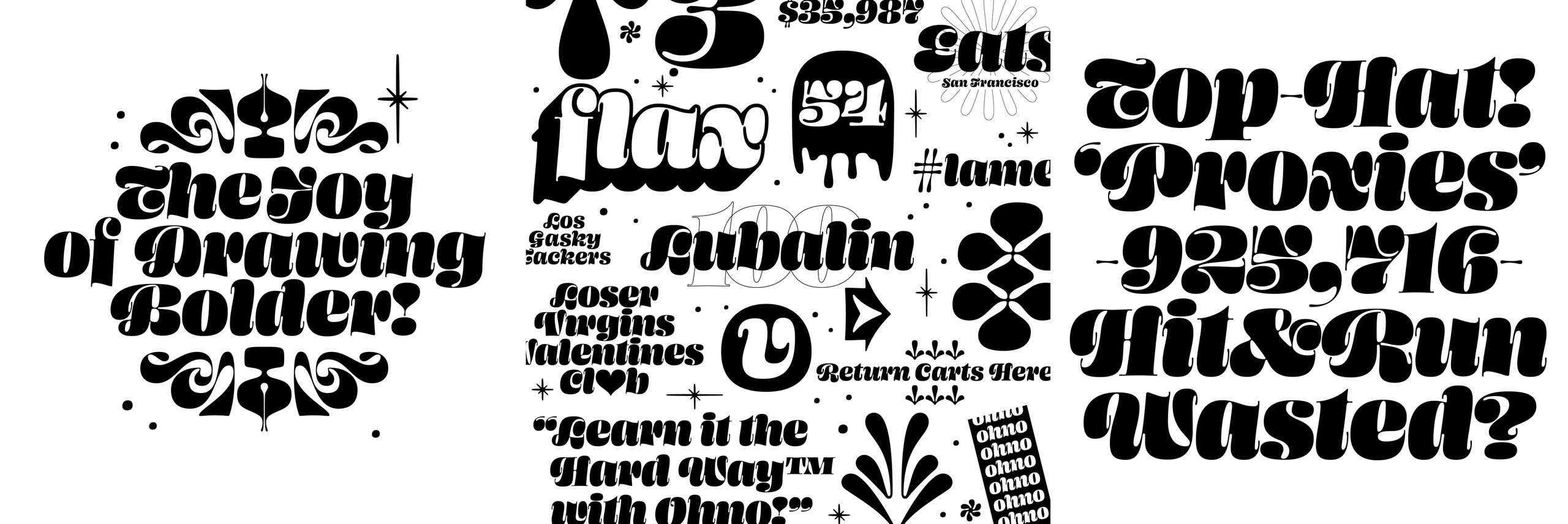
Ohno Blazeface Italic Font is perfect for dynamic sports marketing, high-energy entertainment promotions, explosive gaming graphics, adrenaline-fueled event campaigns, intense fitness branding, blazing speed advertisements, fiery music festivals, extreme sports materials, action-packed movie titles, and electrifying performance communications.
What makes Ohno Blazeface Italic Font so exciting is its explosive combination of kinetic energy and blazing intensity that delivers an immediate adrenaline rush through dramatically slanted typography designed for maximum visual impact and emotional acceleration. This dynamically crafted typeface features aggressively angled letterforms with fire-inspired proportions and speed-influenced character variations that immediately convey movement, passion, and the unstoppable force of pure energy in motion. The font's blazing construction and velocity-driven aesthetic create an instant sense of explosive action and burning intensity, making it ideal for projects that need to communicate extreme energy, competitive fire, and the life-changing power of passionate pursuit to audiences seeking maximum excitement and transformative high-energy experiences.
The Ohno Blazeface Italic Font family typically includes multiple blazing weights and explosive styles, often featuring regular, bold, and ultra-intense variations along with speed-optimized character spacing. High-energy font collections frequently offer additional dynamic elements such as flame effects, velocity symbols, and intensity decorations that enhance the blazing aesthetic and provide designers with comprehensive tools for creating genuinely explosive and energy-maximizing communications.
Ohno Blazeface Italic Font Free Download offers designers an exceptional resource for creating intensely dynamic and energetically compelling designs. Whether you're developing materials for extreme sports competitions, crafting branding for high-energy entertainment venues, or designing communications for performance-driven organizations that celebrate competitive intensity and passionate achievement, this font delivers the blazing presence that adrenaline seekers and high-energy audiences crave and find absolutely electrifying.
The explosive nature of Ohno Blazeface Italic Font makes it particularly effective for targeting demographics that actively seek intense experiences and high-energy challenges in their recreational and competitive pursuits. Extreme sports marketers and entertainment producers will find this font especially valuable for materials that must establish immediate intensity credibility and capture the attention of audiences seeking maximum excitement and transformative energy experiences.
What sets Ohno Blazeface Italic Font apart is its ability to channel controlled explosive energy while maintaining the functionality necessary for effective high-impact communication. This blazing characteristic makes it suitable for both extreme action applications and mainstream entertainment contexts where projecting maximum intensity and maintaining readable communication must coexist harmoniously.
Professional designers recognize that Ohno Blazeface Italic Font brings invaluable energy credibility to projects across industries including sports marketing, entertainment production, gaming development, and performance enhancement. Its blazing character and explosive appeal make it essential for organizations whose mission centers on maximizing human potential, celebrating competitive excellence, and creating genuinely electrifying experiences that push the boundaries of excitement and achievement.
The calculated explosive intensity of Ohno Blazeface Italic Font ensures consistent high-energy messaging across all adrenaline-focused communication applications while maintaining the visual impact essential for breakthrough performance marketing.